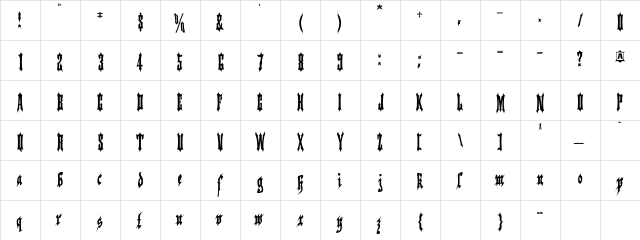
Applesauce07 Regular Font Preview
Applesauce07 Regular
Design Context for Applesauce07 Typeface
Applesauce07 is a composed and adaptable typeface that performs quietly and consistently across a wide range of design contexts.